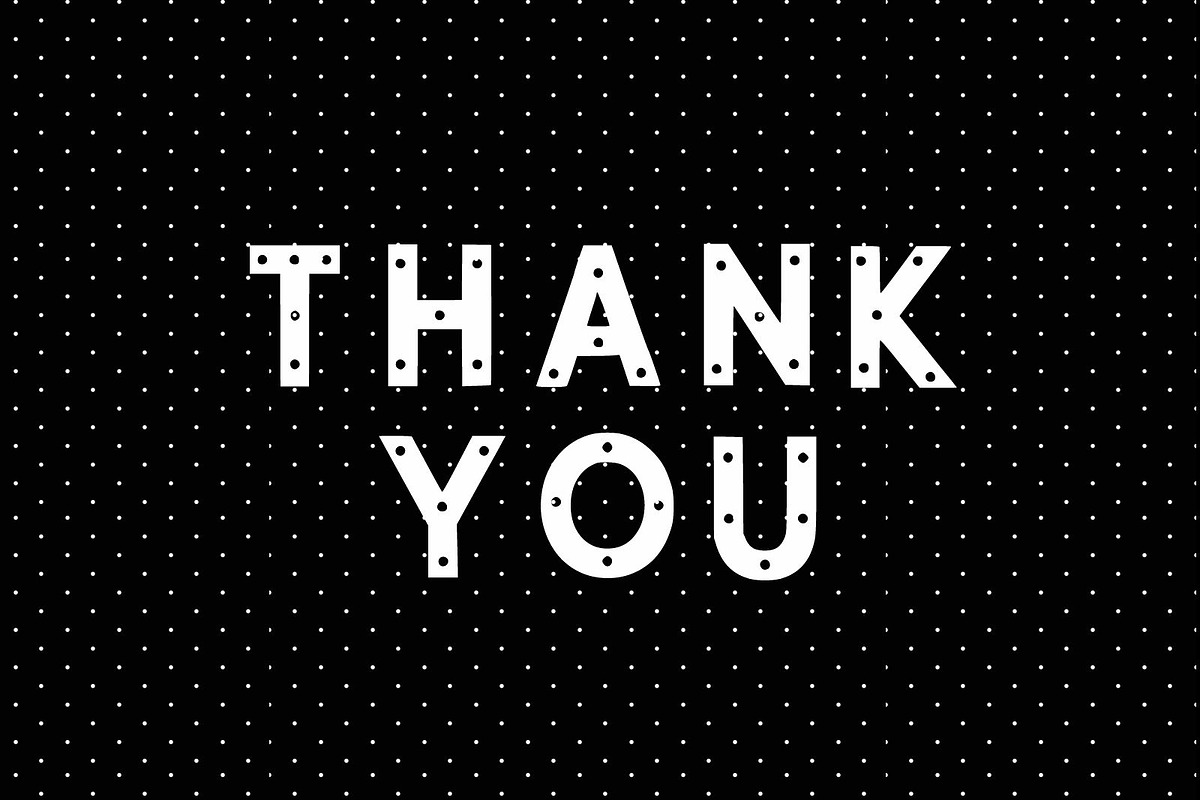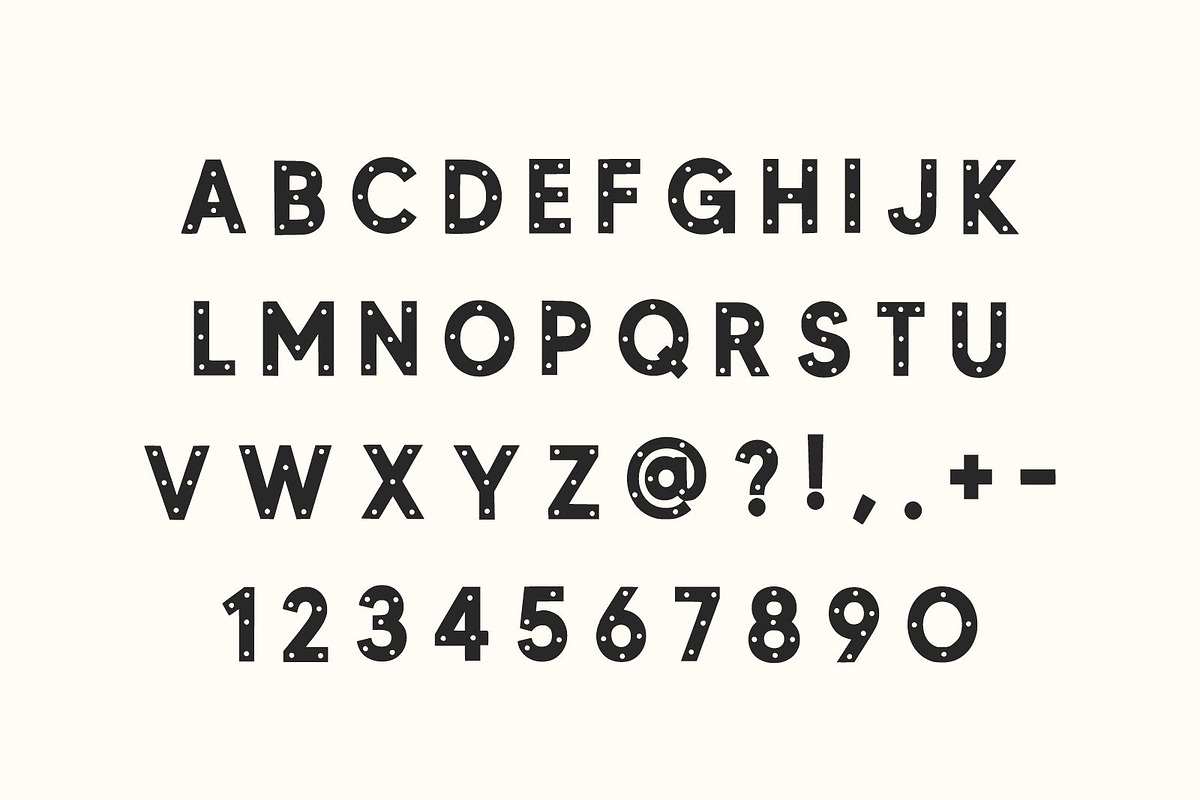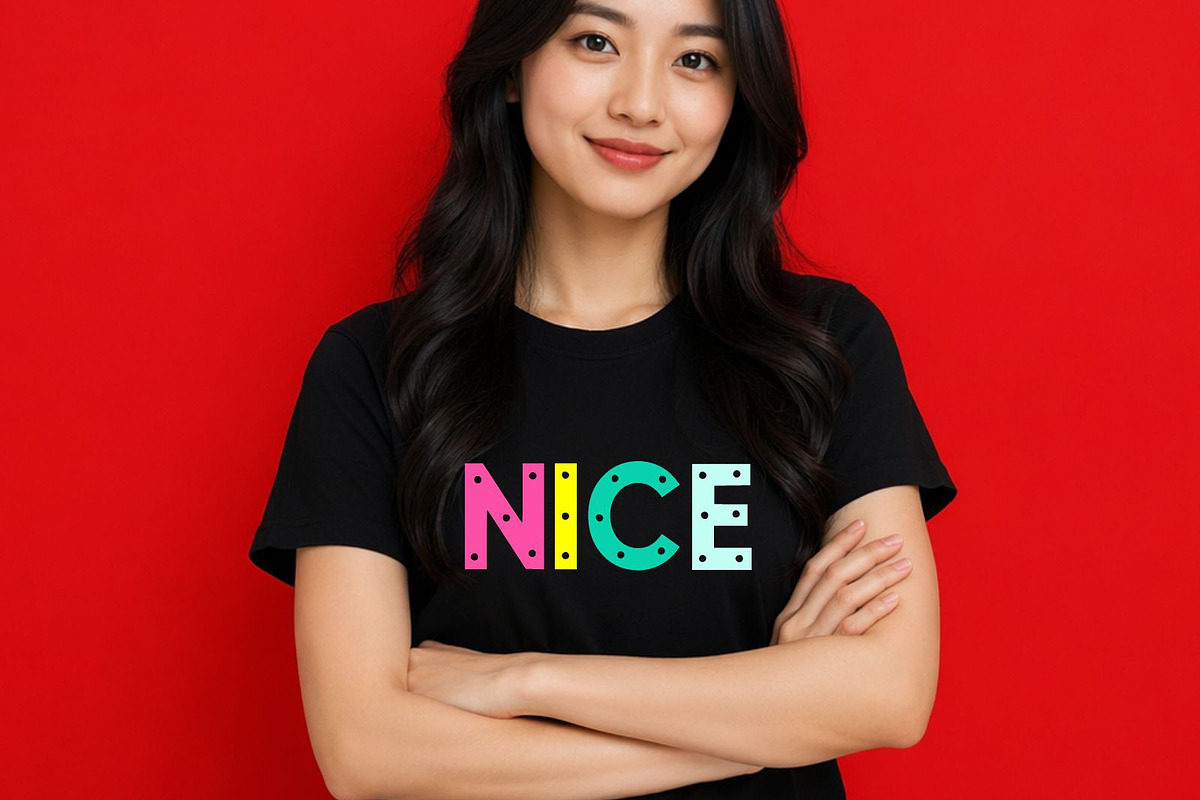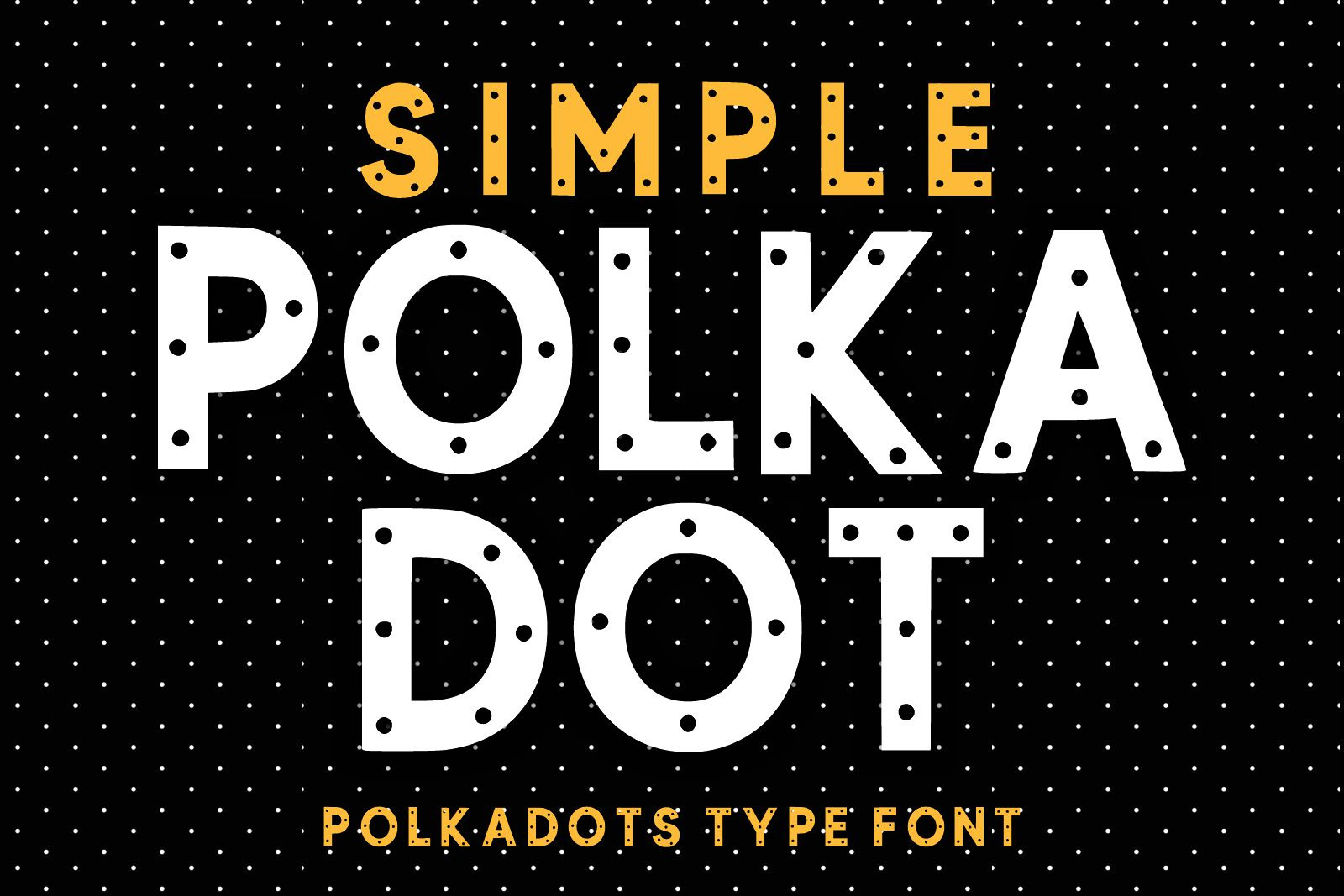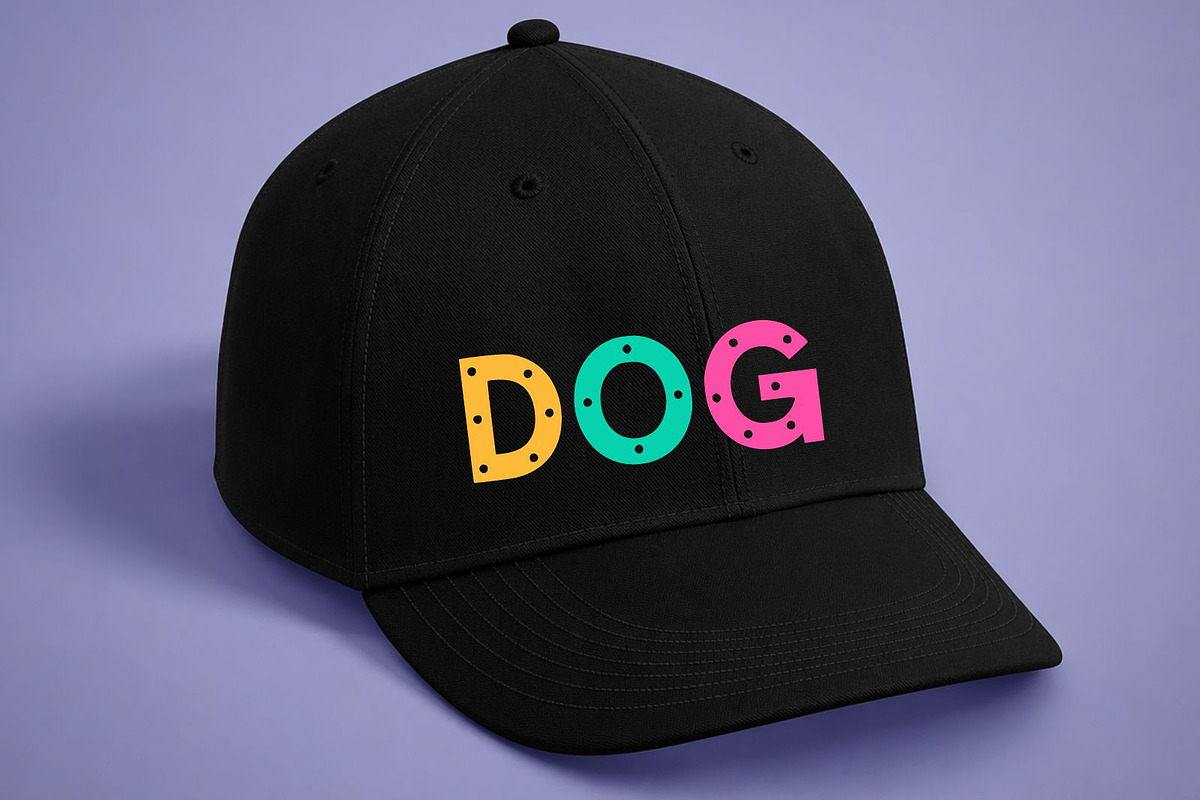
Cute Playful Display Typeface
Simple Polka Dot is a cheerful and modern display font featuring adorable polka dot details inside every letter. Designed with clean, bold letterforms and playful decorative dots, this typeface brings a fun and friendly personality to any creative project.
Perfect for children's products, classroom materials, birthday invitations, branding, logos, posters, packaging, social media graphics, and Cricut crafts, this font combines excellent readability with a unique decorative style. Whether you're designing for kids or simply want to add a joyful touch to your work, Simple Polka Dot makes every headline stand out.
Its versatile design works beautifully for both digital and print applications, making it an excellent choice for designers, crafters, teachers, and small business owners.
Kids Branding
Children's Books
Birthday Invitations
Nursery Designs
Educational Materials
Classroom Decorations
Posters & Flyers
T-Shirt Designs
Stickers & Labels